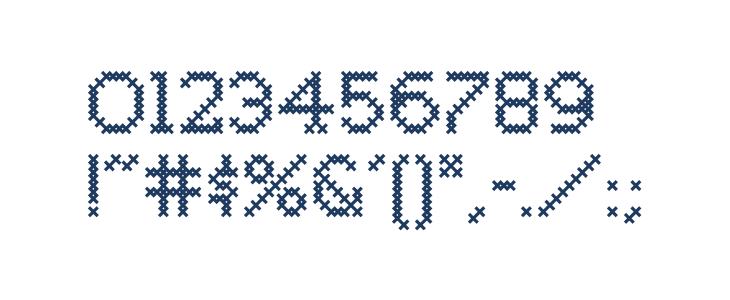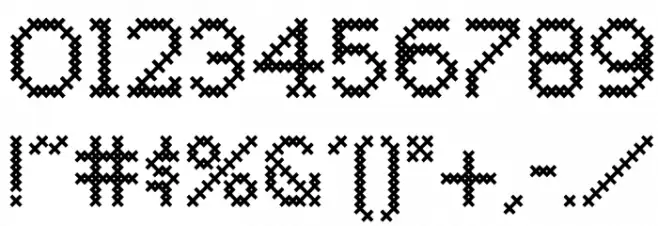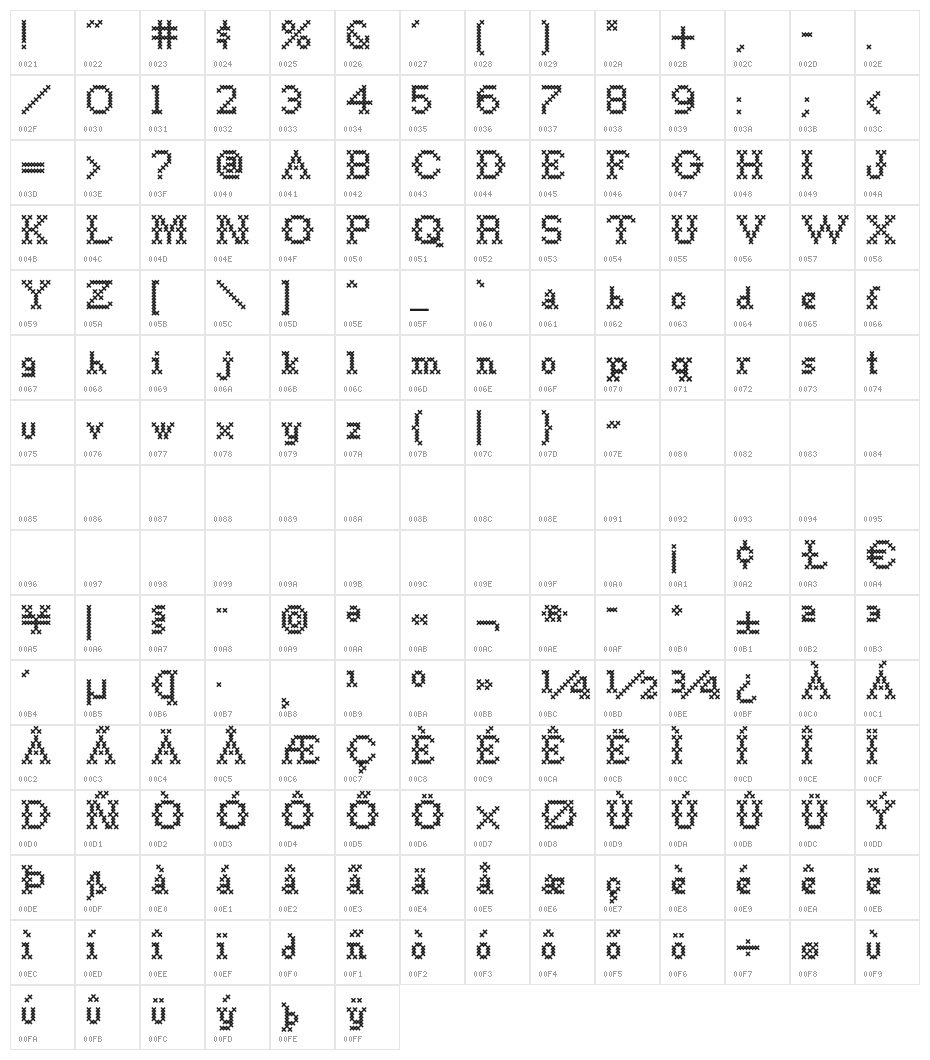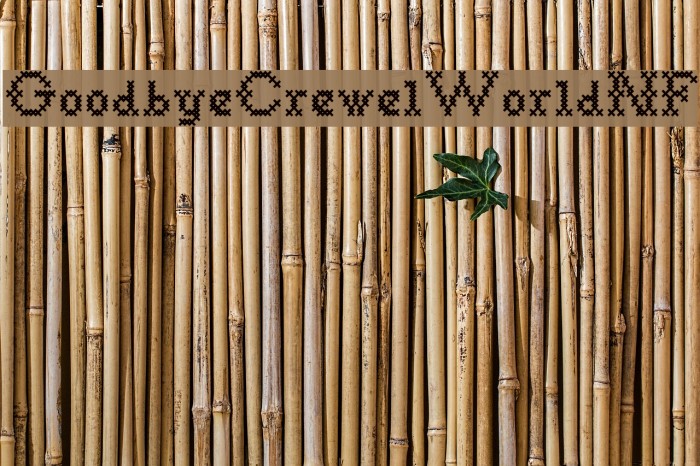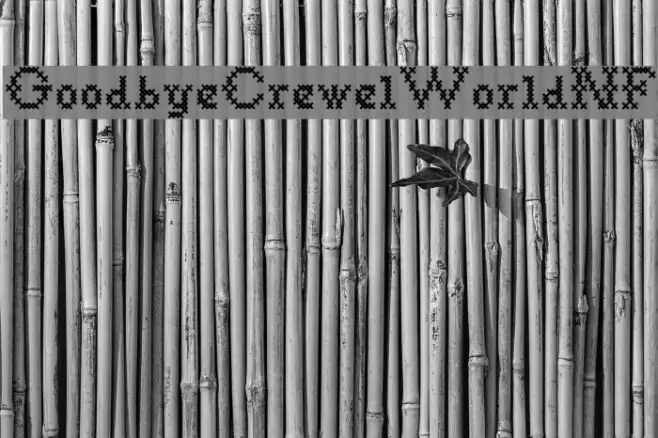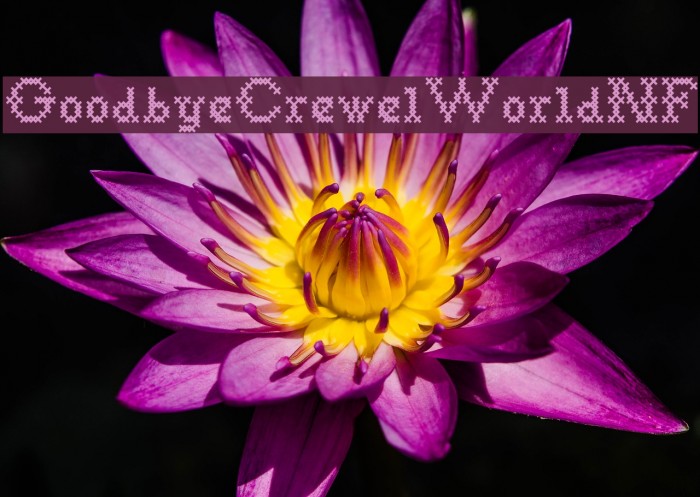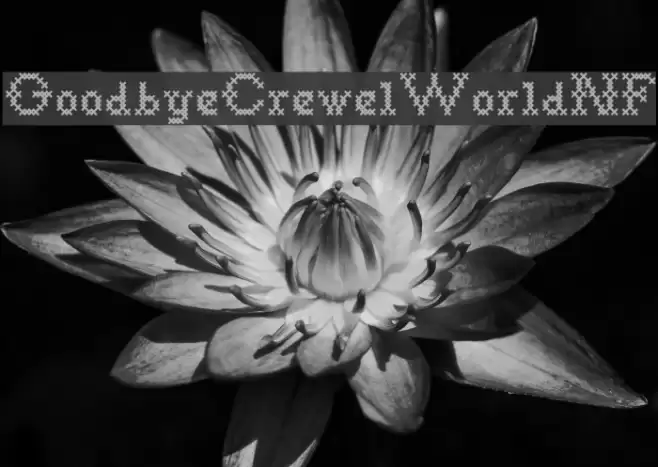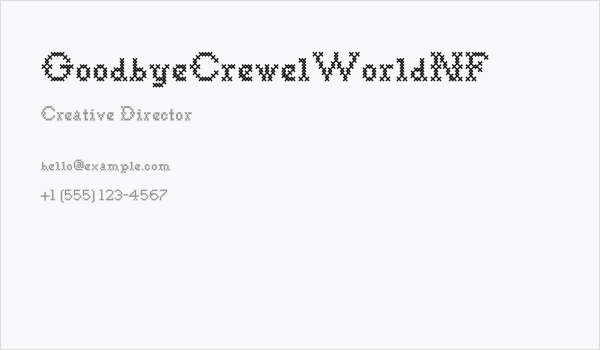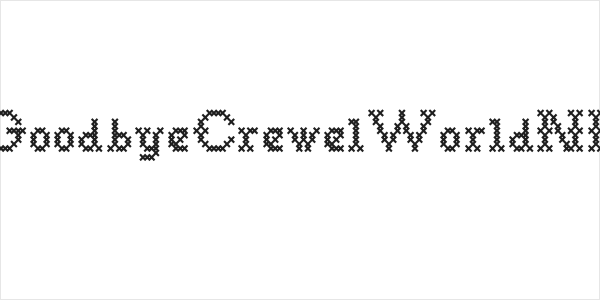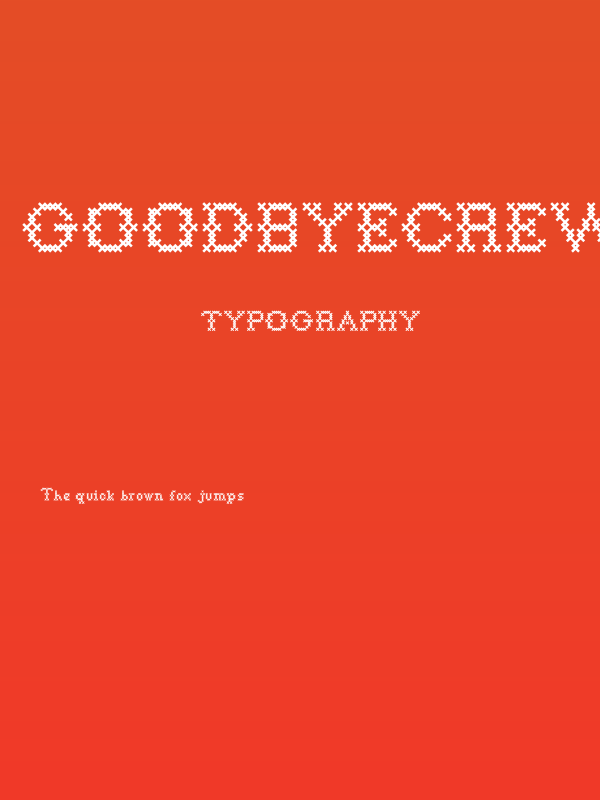
GoodbyeCrewelWorldNF Font
GoodbyeCrewelWorldNF Description
This font features a unique cross-stitch pattern that mimics the look of traditional embroidery. Each character is composed of small, intersecting lines that create a textured, handcrafted appearance. The design is consistent across uppercase, lowercase, numbers, and special characters, maintaining a cohesive aesthetic. The font's playful and decorative style makes it stand out, offering a nostalgic feel reminiscent of folk art and craftwork. Its intricate detailing and distinct style make it suitable for projects that require a touch of whimsy and creativity.